Adelle Mono in Digitalagentur.berlin
Adelle Mono has been used in the website digitalagentur.berlin, a project to support Berlin-based companies in digitization.
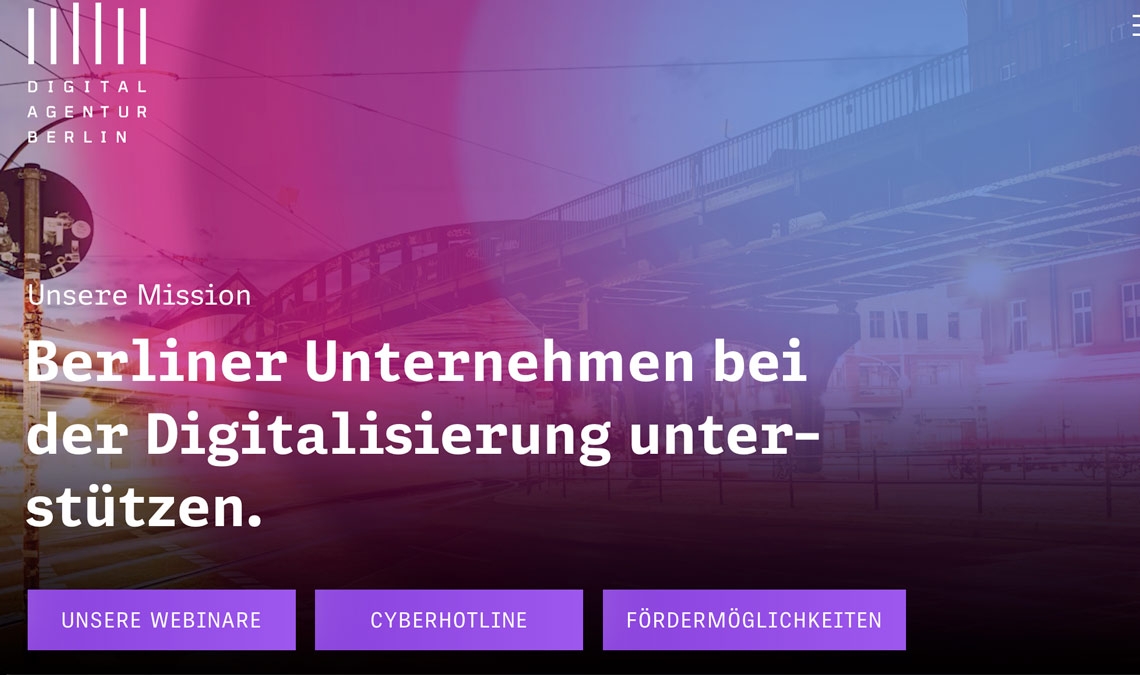
Adelle Mono has been used in the website digitalagentur.berlin, a project to support Berlin-based companies in digitization.
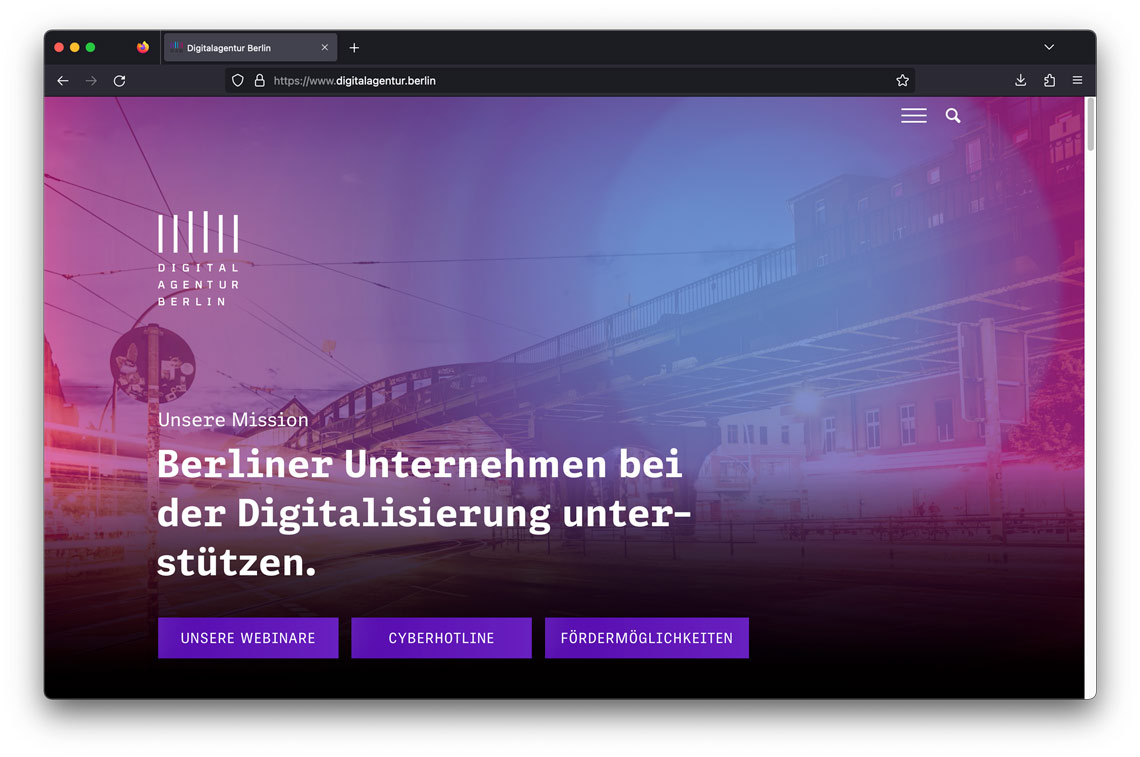
The platform Digitalgentur from Berlin (Digital Agency Berlin) is the central coordination office for digitization in Berlin for all Berlin companies – funded and financed by the state of Berlin. The website includes information and webinars on how to improve the digital aspect of the Berlin companies.
The website uses Adelle Mono throughout, in titles, menus and texts. Twenty styles designed with both the developer and the aesthete in mind, the Adelle Mono family has a true monospaced width (Mono), a proportional width (Flex), and a variable font that modulates between the two to boost creativity and coherence.